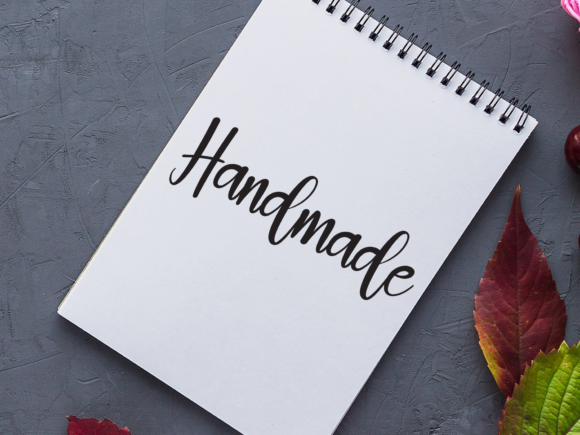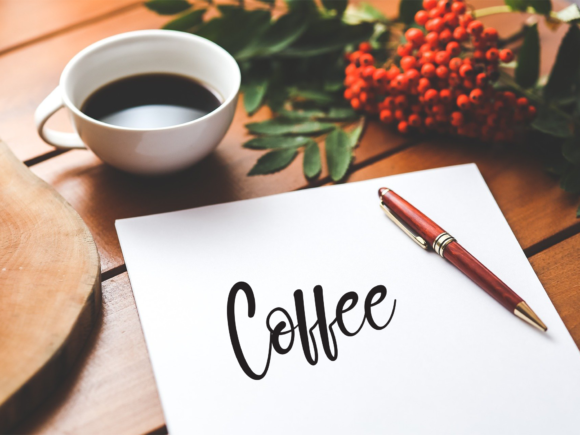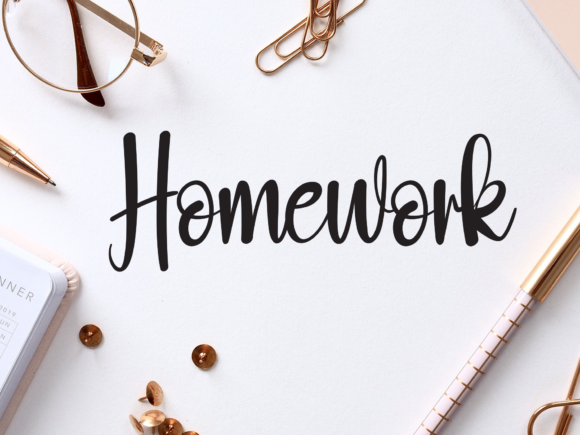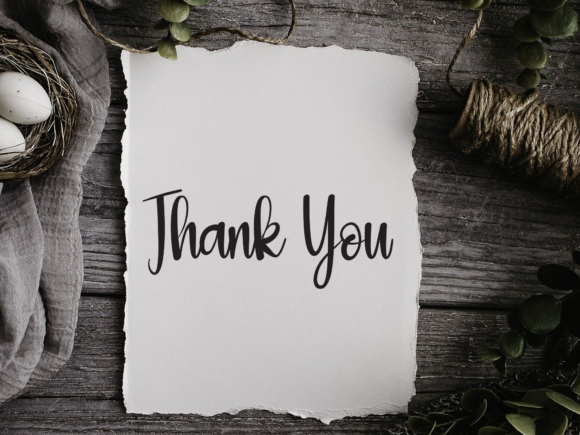
The Quest for the Perfect Font: Discovering Black White
I’ll never forget the time I was working on a project for a client who wanted a handwritten font that exuded warmth and personality. I spent hours scouring the internet for the perfect font, but nothing seemed quite right. That was until I stumbled upon Black White, a sweet handwritten font that has since become a staple in my design toolkit.
A Personal Review of Black White
So, what makes Black White so special? Let’s dive into the good stuff! 😊
- ✨ Unique Character: Black White has a distinct, handcrafted feel that sets it apart from other fonts.
- ✅ Versatility: This font can be used for a wide range of projects, from branding and packaging to invitations and social media graphics.
- 💕 Emotional Connection: The handwritten nature of Black White creates an instant emotional connection with the reader, making it perfect for projects that require a personal touch.
While Black White is an amazing font, it’s not without its quirks. 🤔 Here are a few things to keep in mind:
- ⚠️ Limited Use in Small Sizes: Due to its handwritten nature, Black White can become a bit illegible when used in small sizes (below 10pt). Be sure to use it at larger sizes for optimal readability.
- ⚠️ Occasional Kerning Issues: As with any font, there may be occasional kerning issues when using Black White. Be sure to adjust the kerning manually to ensure optimal results.
- Experiment with OpenType features, such as Stylistic Alternates and Glyphs, to add more personality to your text.
The Story Behind Black White:
Black White was designed with great care and attention to detail. The designer aimed to create a font that was both elegant and approachable, making it perfect for a wide range of projects.
| Q: What type of projects is Black White best suited for? | A: Black White is perfect for branding, packaging, invitations, social media graphics, and more! |
| Q: Is Black White available in different weights or styles? | A: Currently, Black White is available in a single weight. However, the designer may release additional weights or styles in the future. |
| Font Name | Black White Font |